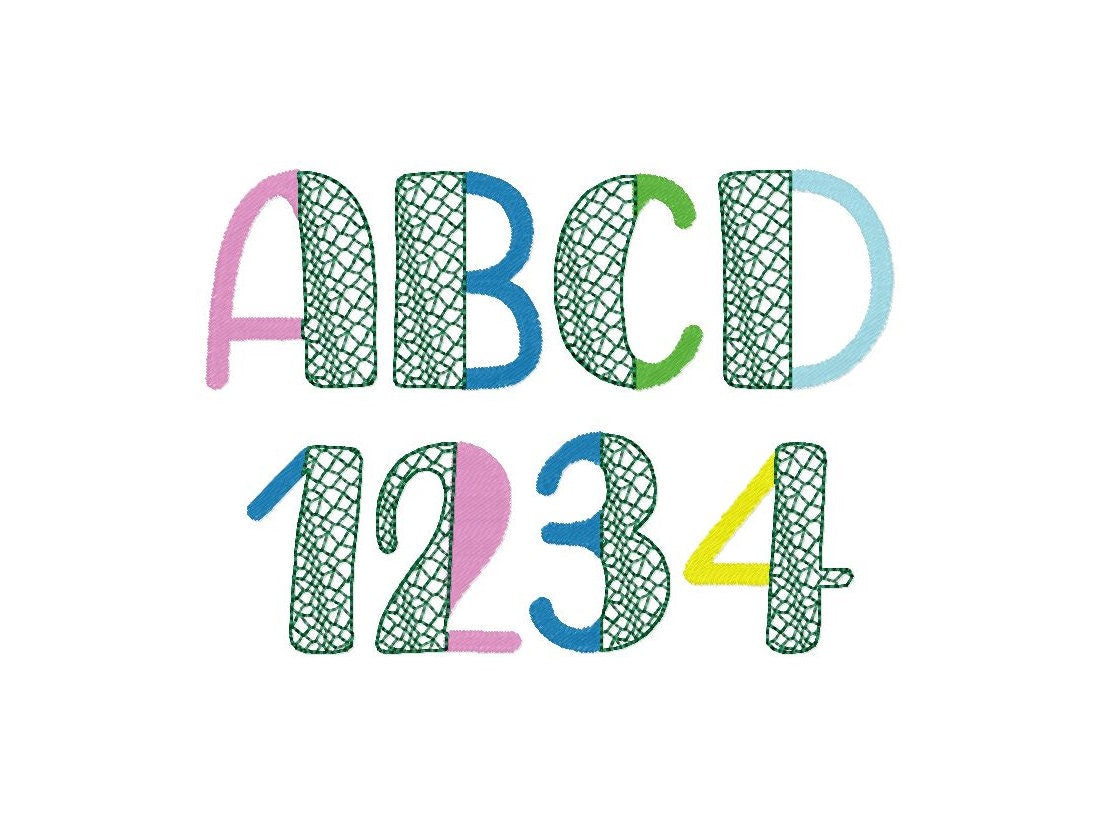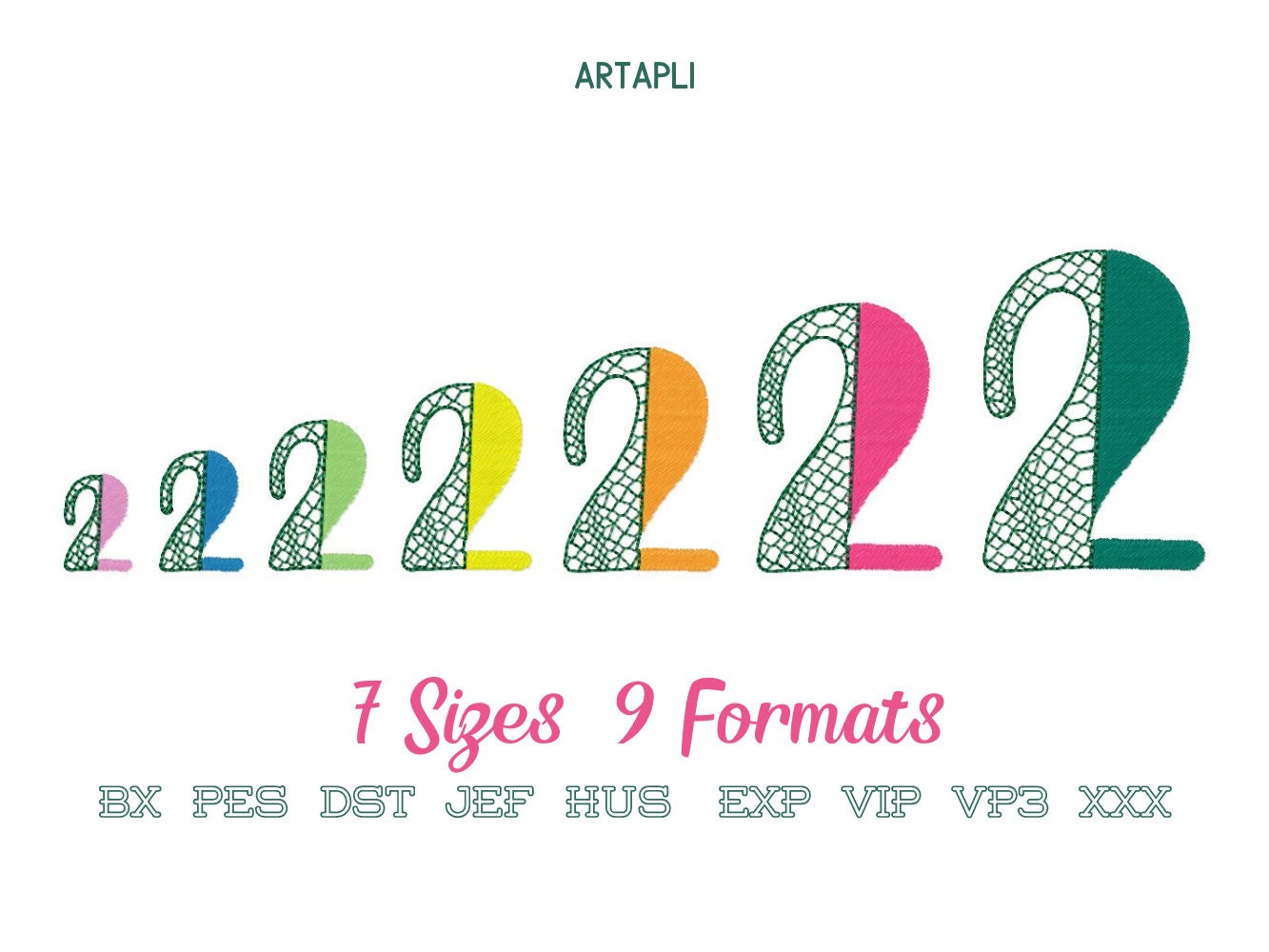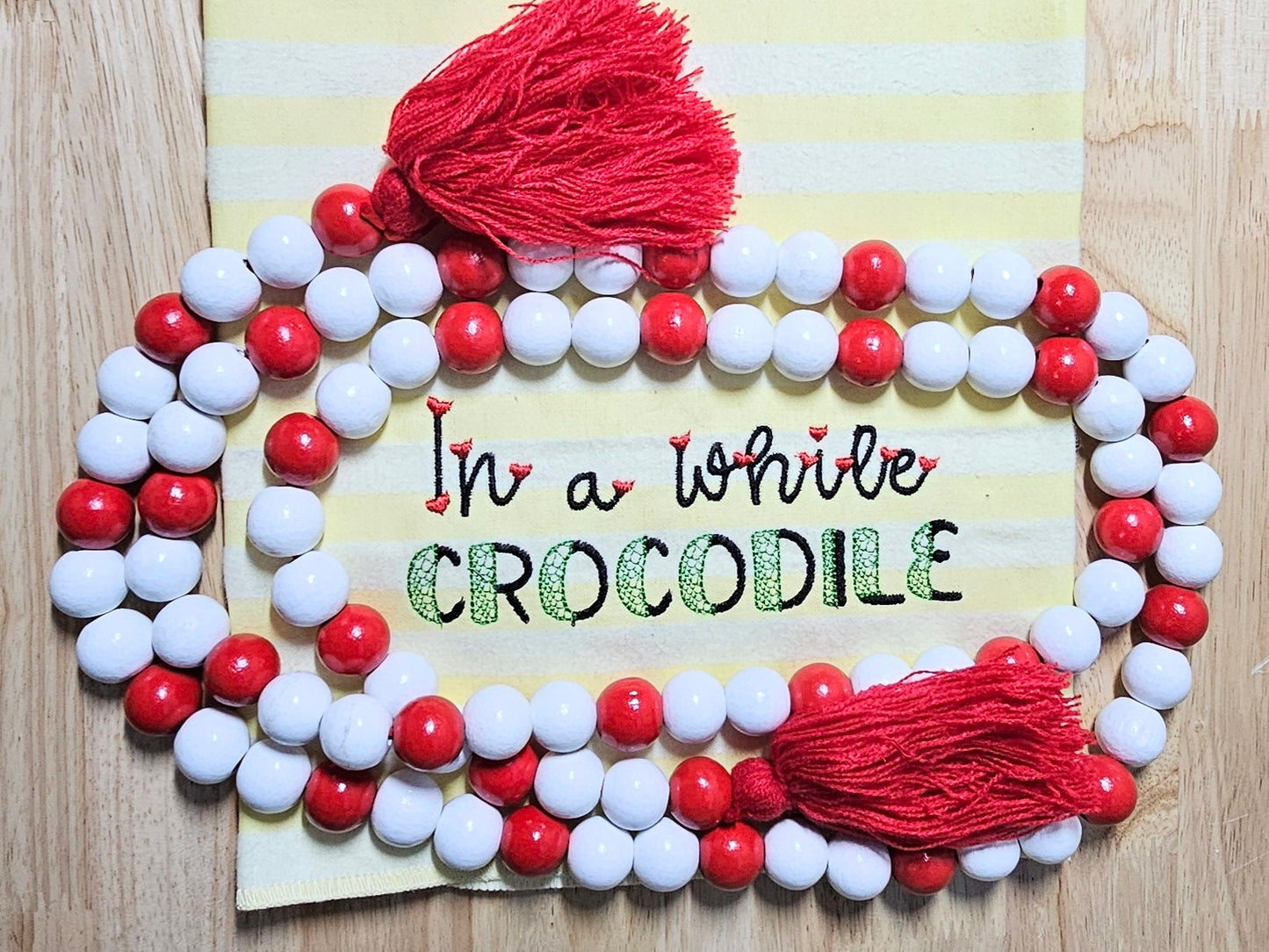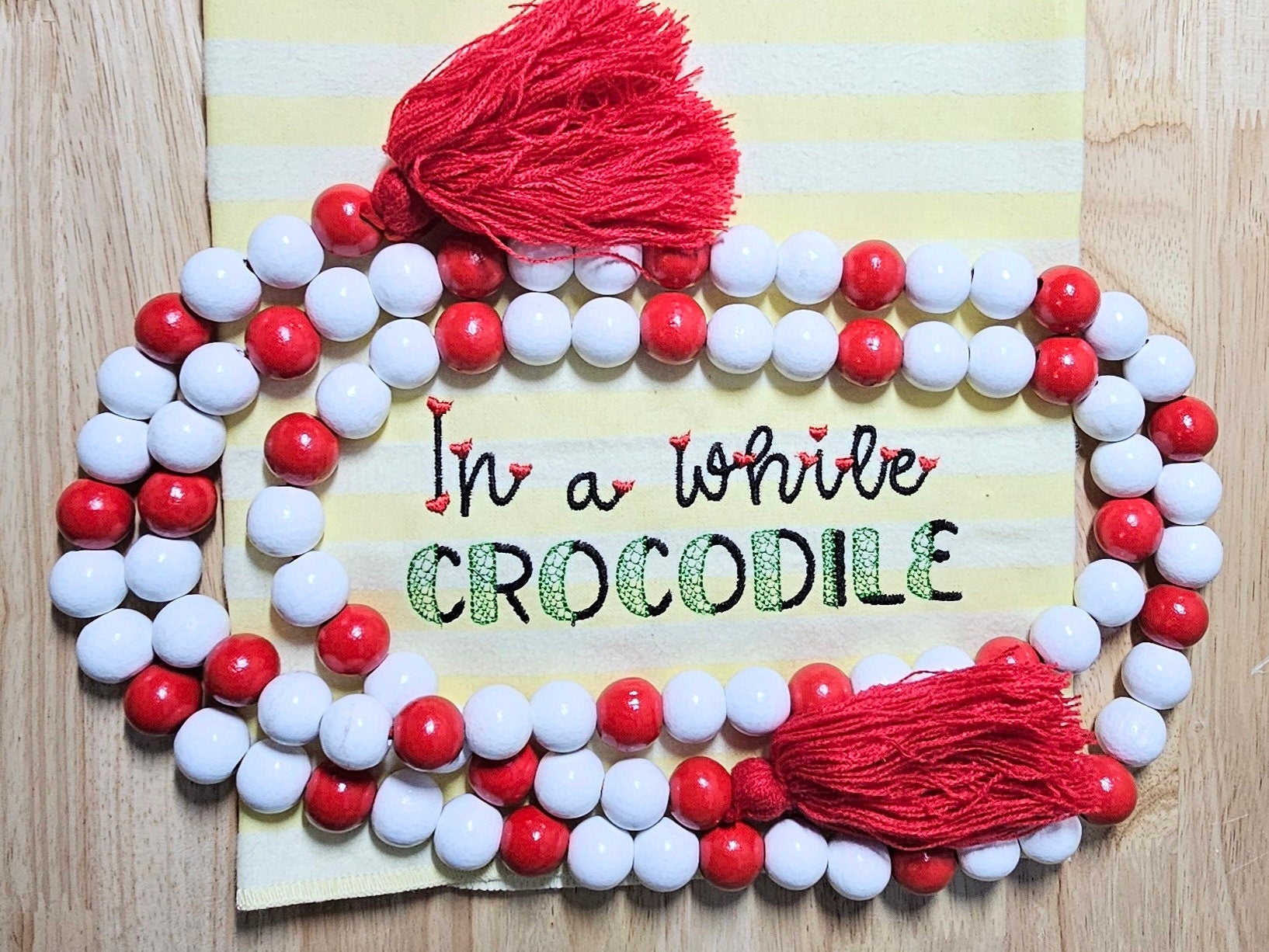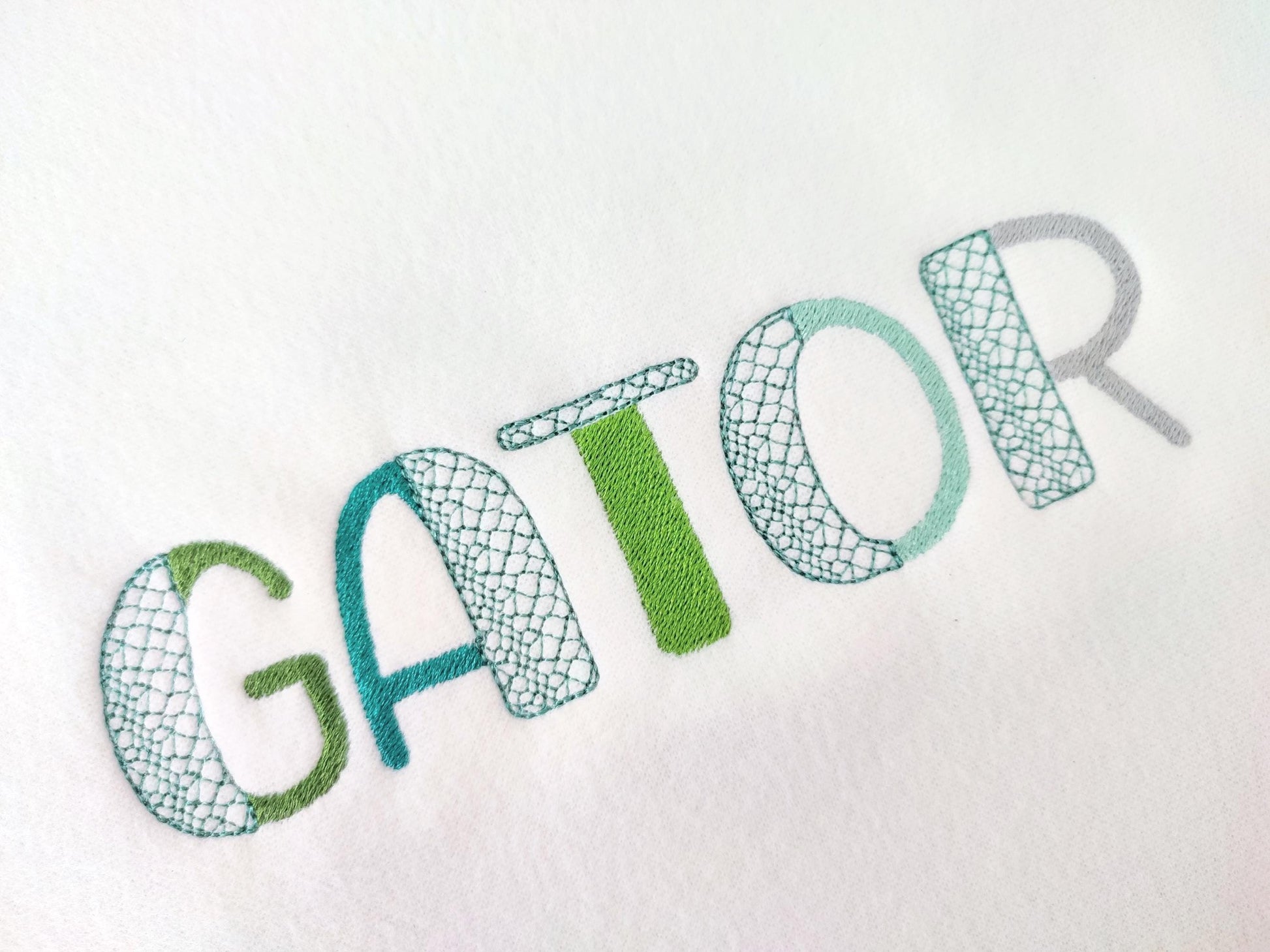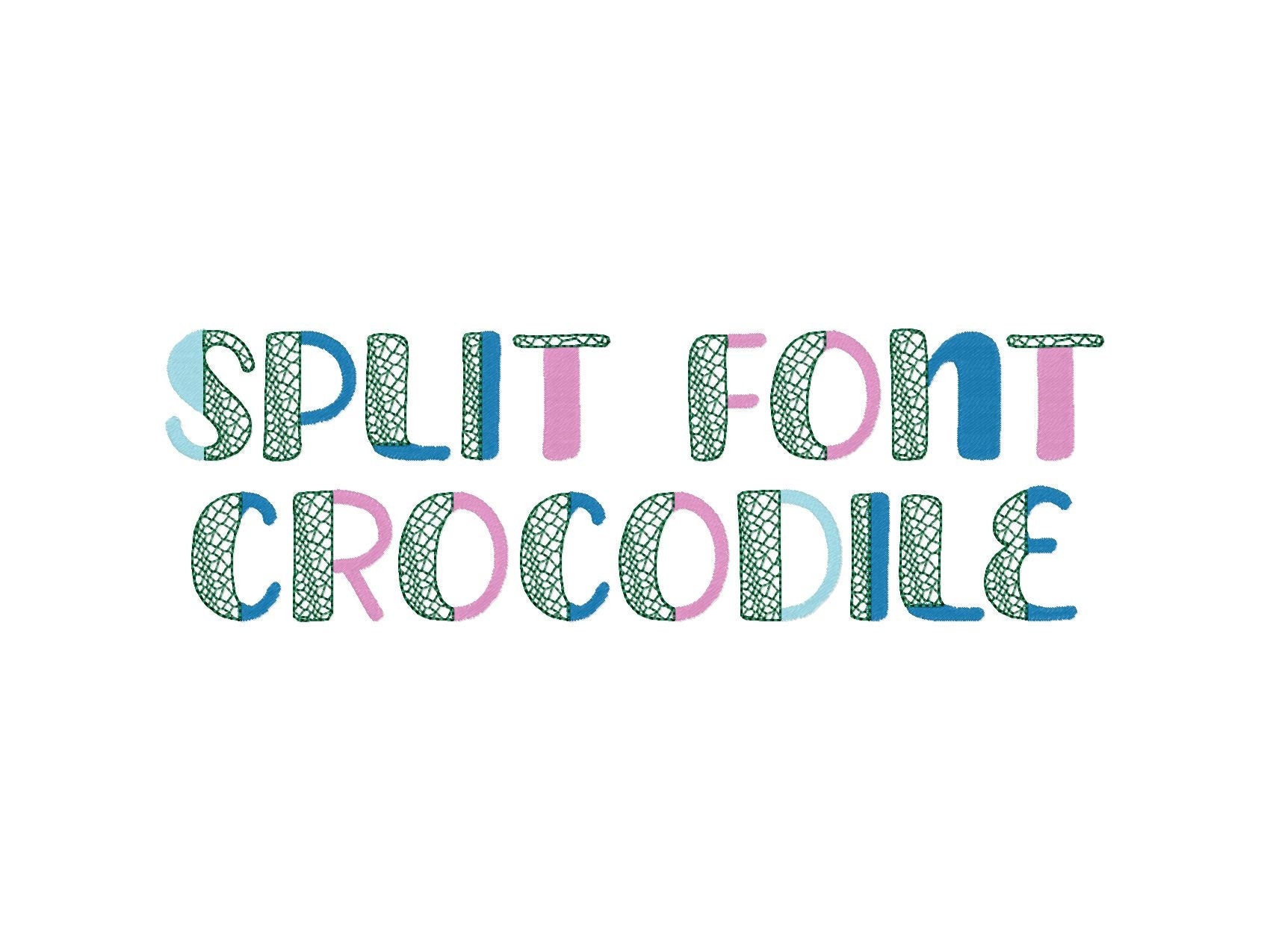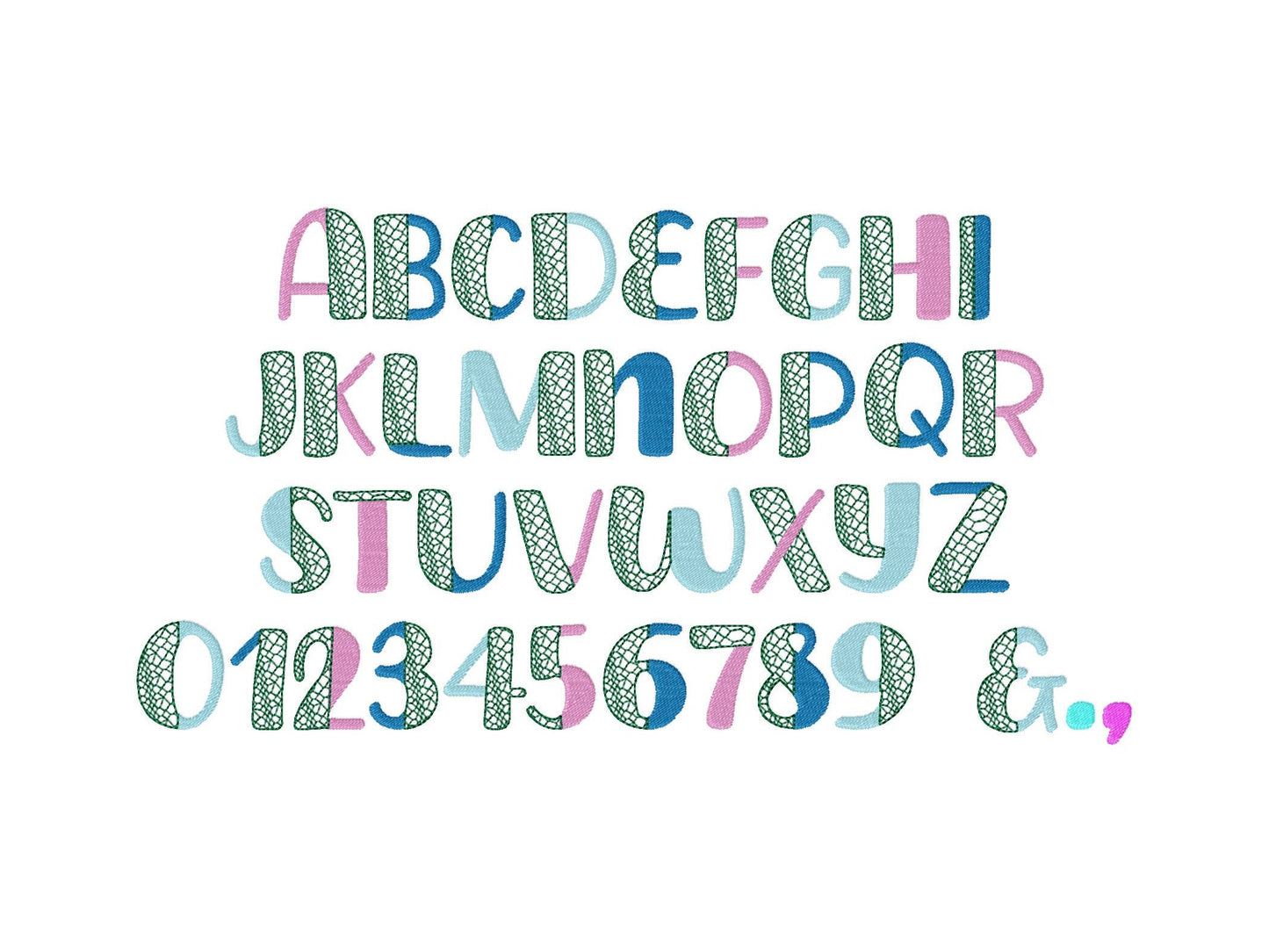
Split Font Crocodile Alligator Print and Fill Stitch Duo Font 2 Colors
Or click to open the linkA split font: each letter is half solid fill and half open alligator print. Great for boys' names and monograms.
The alligator half is open, so the fabric shows through. Uppercase A to Z, numbers 0 to 9 and & , . in seven sizes: 1, 1.2, 1.5, 1.7, 2, 2.5 and 3 inches.
- Alligator print split font
- Uppercase A-Z, numbers 0-9, & , .
- 7 sizes, 1 to 3 in